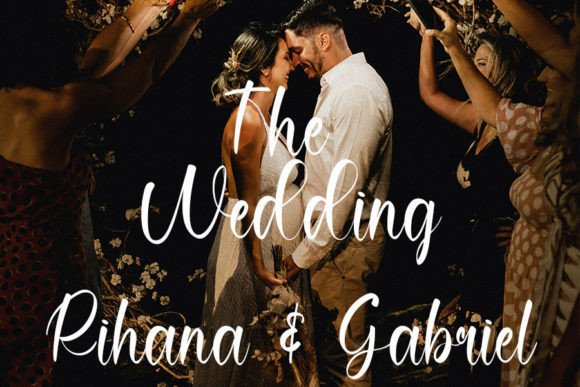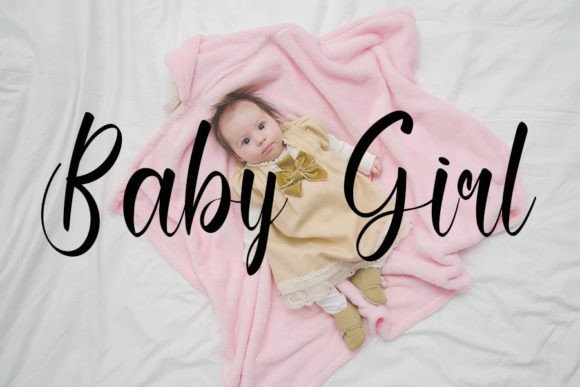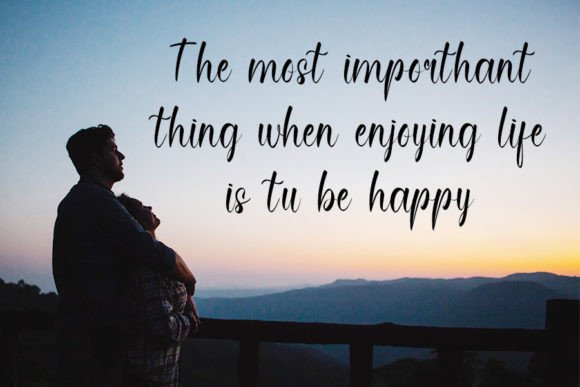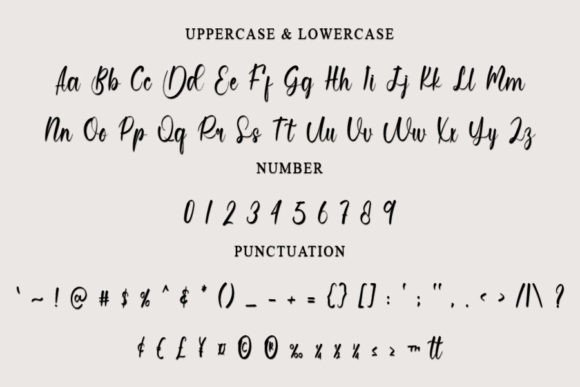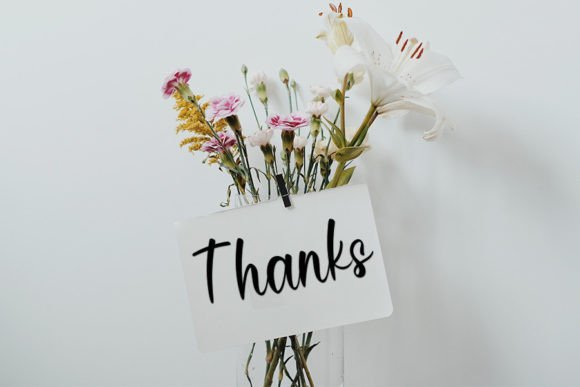
The Ultimate Guide to Daddy Font: Elevate Your Designs with Elegance
I’ll never forget the design project that made me fall in love with the Daddy font. I was working on a branding campaign for a luxury boutique hotel, and I needed a font that exuded elegance and sophistication. After hours of scouring font libraries and trying out different options, I stumbled upon Daddy – a beautiful, handwritten font that instantly captured the essence of the brand. In this article, I’ll share my experience with Daddy font, its features, and how to make the most of it in your designs.
An Honest Review of Daddy Font
So, what makes Daddy font so special? Let’s dive into the good stuff! 😊
- ✨ Elegant and refined: Daddy font boasts an incredibly distinct and timeless style that’s perfect for high-end designs.
- ✅ Versatile: This font is suitable for a wide range of projects, from logos and branding to invitations and digital media.
- 💫 Handwritten charm: The font’s handwritten nature adds a touch of warmth and personality to your designs.
Now, no font is perfect, and Daddy has a few quirks to keep in mind:
- 🤔 Limited multilingual support: While Daddy font covers the basics, it may not support all languages or special characters.
- ⚠️ Not ideal for body text: Due to its elegant, cursive nature, Daddy font is best suited for headlines, titles, and short paragraphs.
- Experiment with OpenType features, such as glyphs and stylistic alternates, to add more flair to your text.
The Story Behind Daddy Font
While the origins of Daddy font are shrouded in mystery, it’s clear that the designer aimed to create a font that exudes warmth, elegance, and sophistication. Imagine a designer pouring their heart into crafting a font that would make every project feel special – that’s Daddy font in a nutshell.
| What makes Daddy font so special? | Daddy font boasts an incredibly distinct and timeless style that’s perfect for high-end designs. |
| Is Daddy font suitable for body text? | No, Daddy font is best suited for headlines, titles, and short paragraphs due to its elegant, cursive nature. |